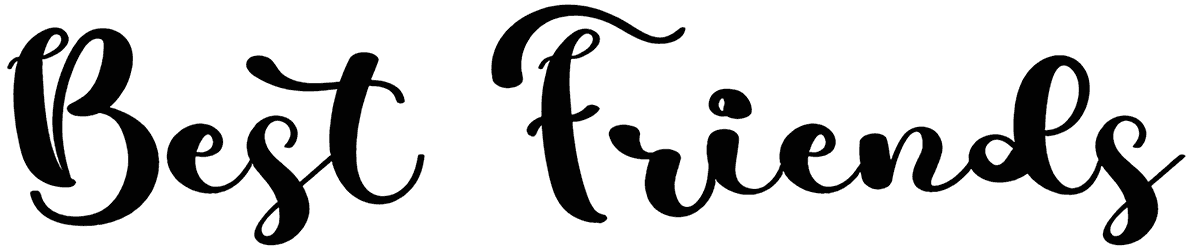
Best Friends Font
With a ravishing and classic face, your design can be more impressive and eye-catching. As a handwritten font, Best Friends has a cute and curved letter style that can reflect a lovely vibe. With almost full characters, this calligraphy font will be a unique illustration for a lot of layouts, from postcards to movie ads.